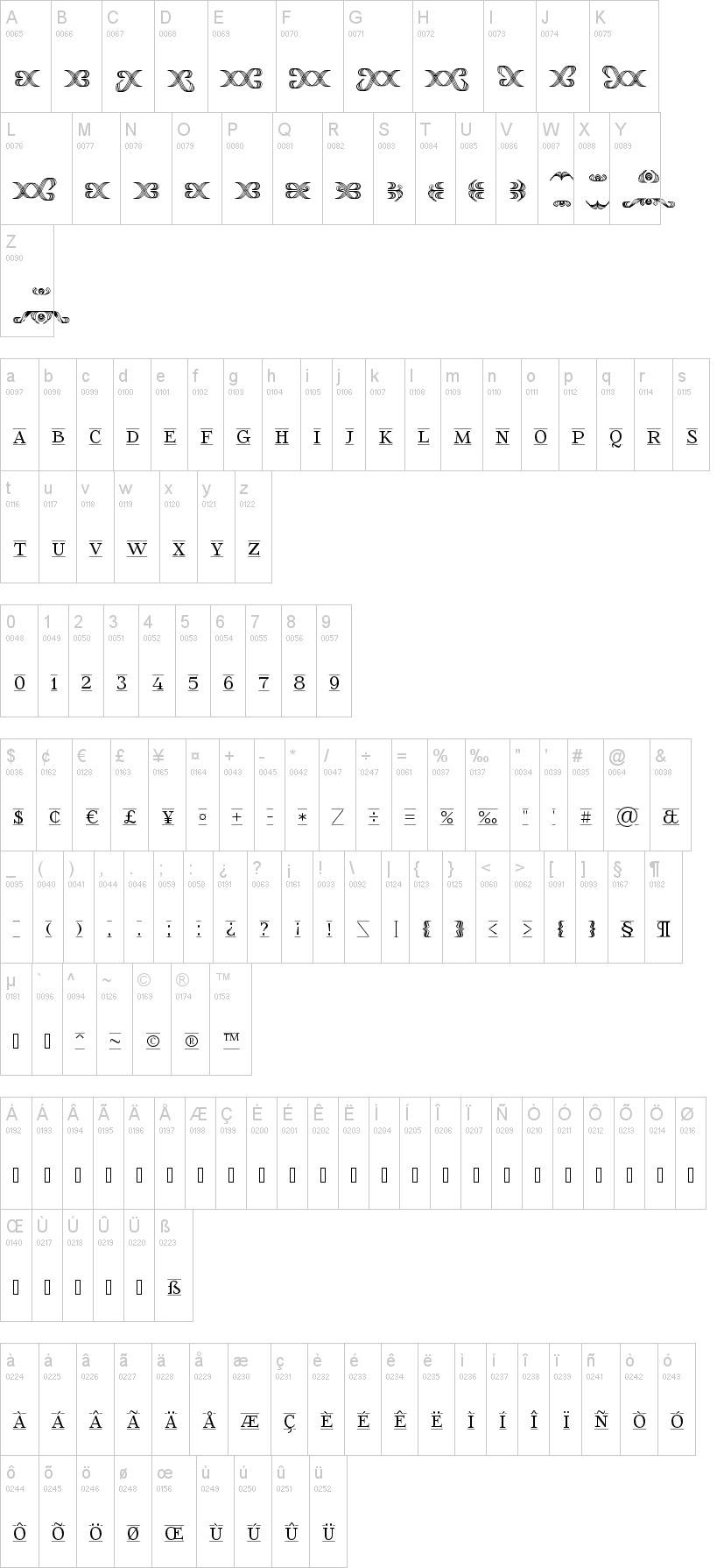
FoglihtenFr01.otfNote of the authorDecorative Set of Frames with access direct from Keyboard, based on Foglihten PetiteCaps. See Examples of use in FoglihtenFr02.pdf and FoglihtenFr02.pdf!